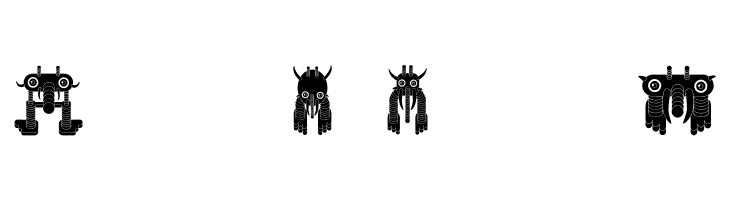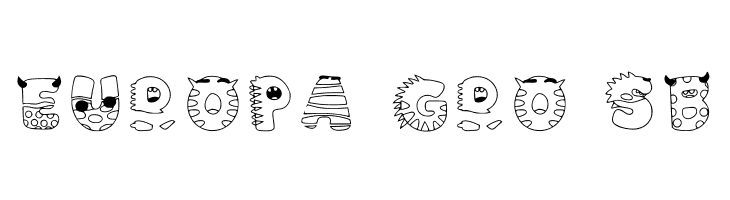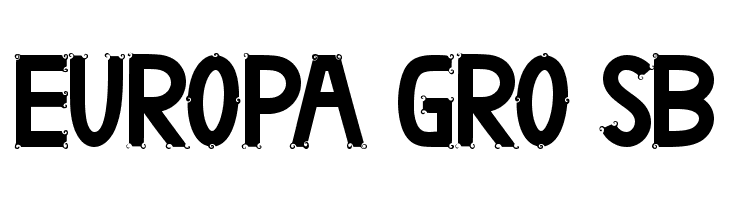
A playful, handwritten font with a whimsical and friendly appearance.
A playful, rounded font with a hand-drawn, whimsical style.
Ornamental symbol font with Japanese crest-inspired designs.
Abstract geometric dingbat font with diverse shapes and patterns.
Ornate, emblematic display set with Japanese crest motifs.
Ornamental, abstract circular glyphs with intricate linework.
A whimsical and decorative font featuring cartoonish, creature-like characters.
Ornamental symbol set with geometric and floral motifs.
Ornamental dingbat font of Japanese crane crests.
A playful, hand-drawn font with rounded, irregular letterforms.
A playful, bubbly font with rounded, textured characters.
An elegant script font with intricate, flowing lines and ornate uppercase letters.
A bold, italicized font with a rugged, hand-drawn appearance.
A bold, 3D italic font with a rugged, textured appearance and playful style.
A bold, condensed, and italicized font with a jagged, distressed style.
A bold, textured, and italicized decorative font with an energetic style.
A bold, jagged font with a horror-inspired, dripping effect.
A bold, jagged font with a horror-themed, scratched appearance.
A bold, jagged, and distressed font ideal for horror-themed designs.
A jagged, spooky outline font with a playful, hand-drawn style.
A bold, jagged font with a horror-themed, distressed appearance.
A bold, distressed font with a rugged, grunge-like appearance.
A bold, 3D font with a dripping, playful, and eerie style.
A playful, hand-drawn font with wavy, oceanic-inspired strokes.
A whimsical and decorative font with elaborate curls and swirls.
A bold, playful font with thick, rounded characters ideal for fun and whimsical designs.
A bold, angular font with a geometric and impactful design.